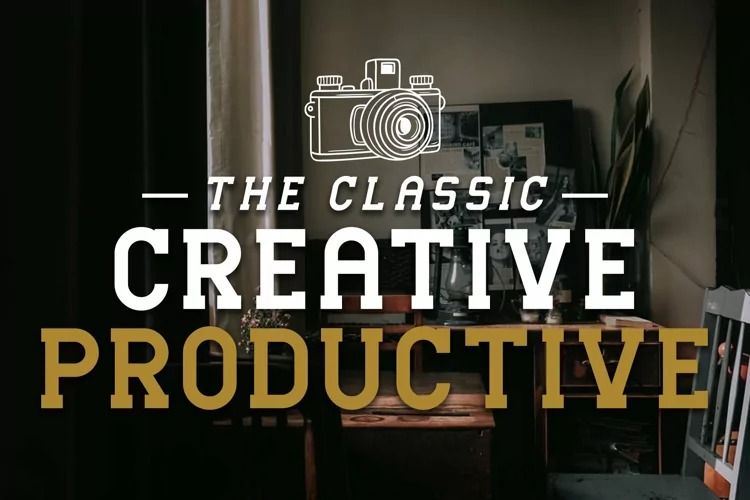
Mousony Slab Serif Font
It’s a modern slab serif font crafted & designed by Sakha Design. Garvin includes uppercase, lowercase, numerals, punctuations, symbol and multi-lingual support. Well-suited for editorial projects, logotypes, posters, clean designs, logos, headlines, banners, templates, branding, packaging, logo design, website design, typography, and many more.